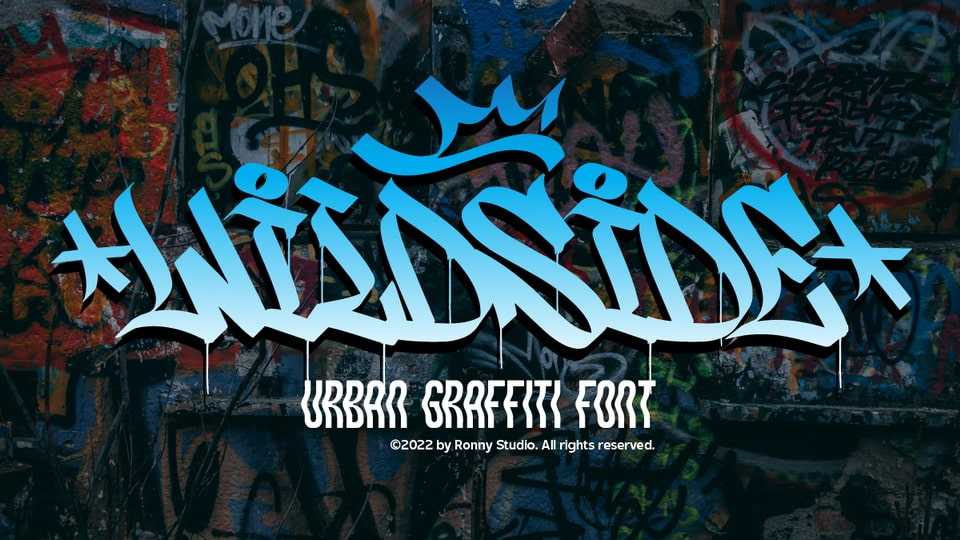
Download Wildside font, a hand lettered typeface inspired by the realistic calligraphy marking style in many big cities. Wildside font is bold and easy to read, perfect for your “street art” design style.